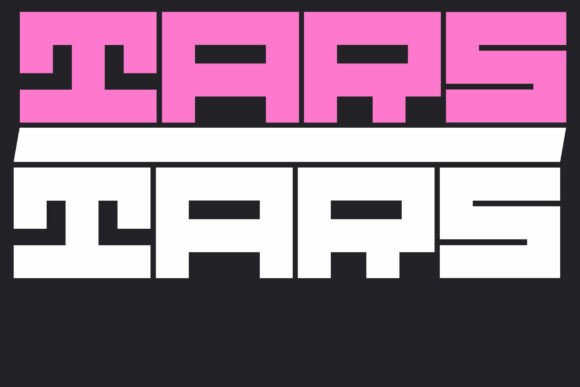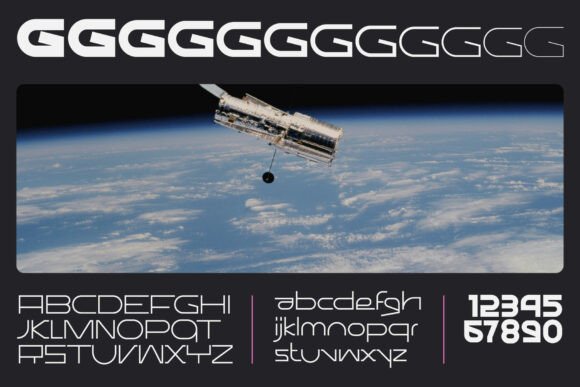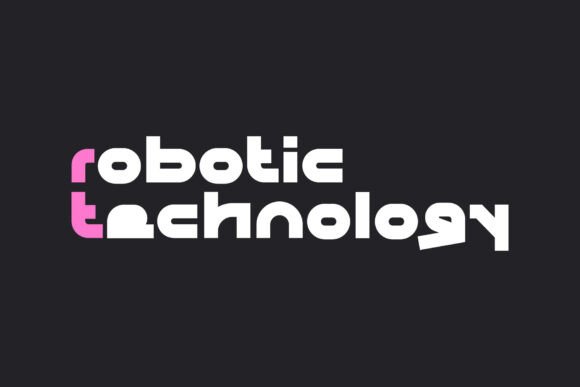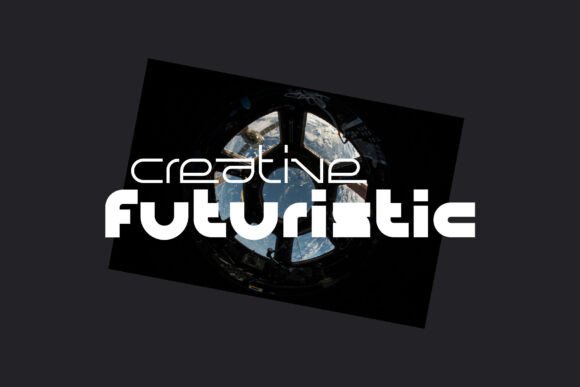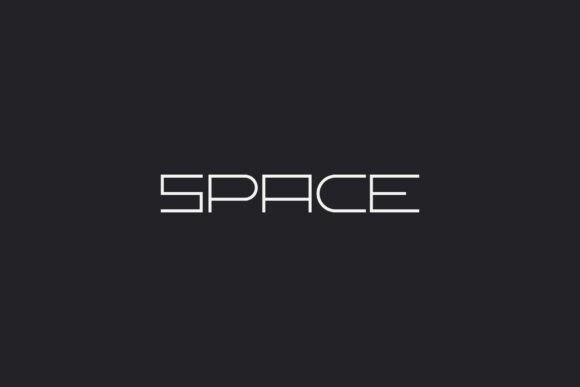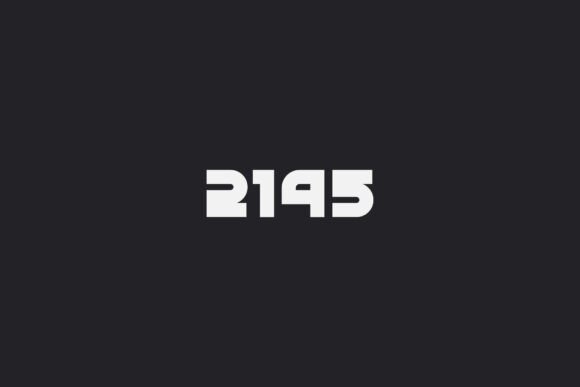
Introducing ERF Tars: A Futuristic Sans Serif Font Family for Bold Designs
In the world of typography, a new font family has emerged that embodies the spirit of modernity and innovation. Say hello to ERF Tars, a futuristic sans serif font family that is designed to make a statement. With its sharp geometric cuts and experimental brutalist aesthetics, ERF Tars is the perfect choice for designers and crafters looking to add a bold and unconventional touch to their work.
A Bold and Unconventional Voice
ERF Tars is characterized by its striking modular forms, which give off a bold and unconventional voice. This font family is not for the faint of heart; it’s designed to stand out and make an impact. Whether you’re creating a logo, headline, or branding materials, ERF Tars is sure to grab attention and leave a lasting impression.
Highly Versatile with 24 Styles
One of the standout features of ERF Tars is its versatility. With 24 styles to choose from (12 Uprights + 12 Italics), you can experiment with different weights and expressions to find the perfect fit for your design. From the minimal Whisper weight to the dominant Doom weight, ERF Tars offers a wide range of options to suit both digital and print needs.
Crafted for Impact and Legibility
Each character in the ERF Tars font family is carefully crafted to make an impact while maintaining legibility and rhythm. The sharp geometric cuts and modular forms ensure that the font is easy to read, even at smaller sizes. This makes ERF Tars an excellent choice for body text, headlines, and titles.
Perfect for Modern Branding and Design
ERF Tars is a font family that is perfectly suited for modern branding and design. Its futuristic aesthetic and bold voice make it an excellent choice for companies and designers looking to create a cutting-edge visual identity. Whether you’re working on a logo, website, or print materials, ERF Tars is sure to help you create a design that stands out from the crowd.
Key Features of ERF Tars
- 24 styles: 12 Uprights + 12 Italics
- Wide range of expressive weights: from minimal Whisper to dominant Doom
- Sharp geometric cuts: for a bold and futuristic aesthetic
- Modular forms: for a striking and unconventional voice
- Highly versatile: suitable for both digital and print needs
- Legible and readable: perfect for body text, headlines, and titles
ERF Tars is a game-changing font family that is sure to revolutionize the world of typography. With its bold and unconventional voice, highly versatile range of styles, and focus on legibility and impact, ERF Tars is the perfect choice for designers and crafters looking to create modern and innovative designs. Whether you’re working on a logo, headline, or branding materials, ERF Tars is the ultimate font family for those who dare to be different.